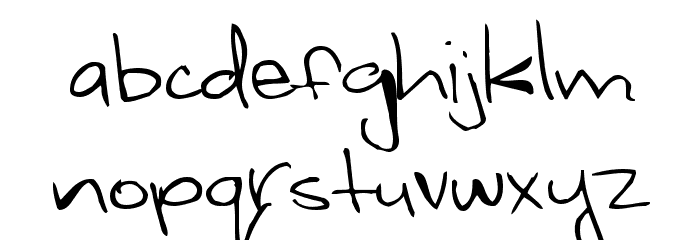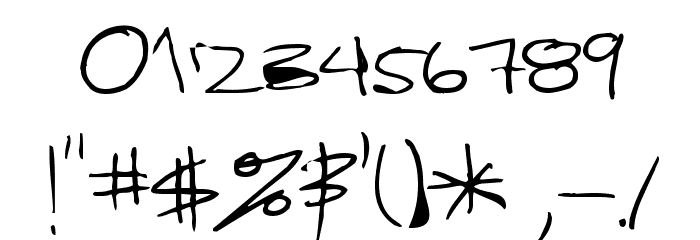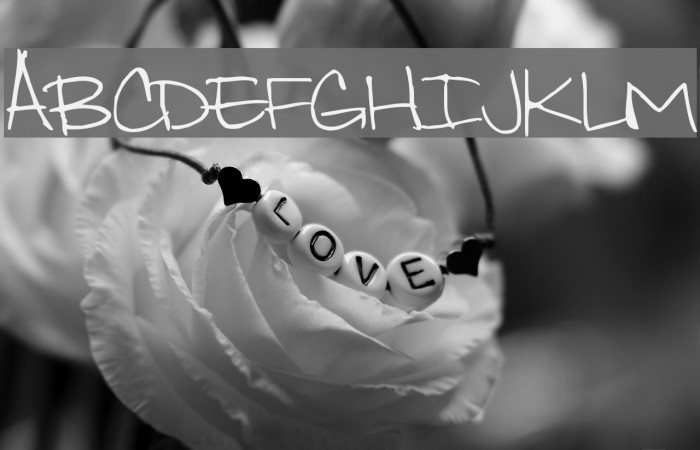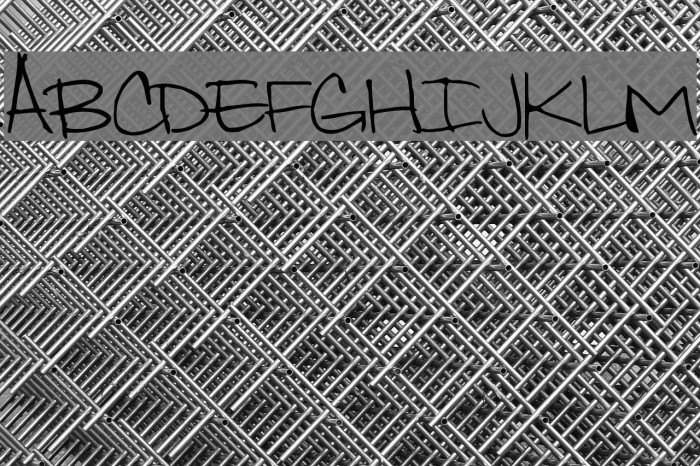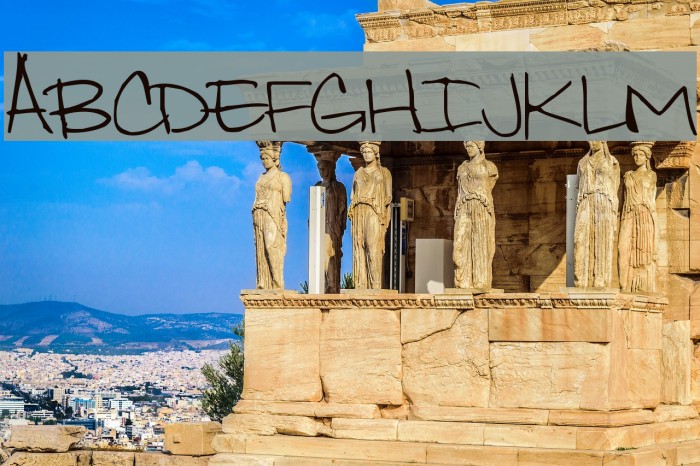
WhiteyFord Font
This font exudes a playful and spontaneous vibe, characterized by its handwritten style that mimics the look of casual, freeform penmanship. The letters are uneven and slightly tilted, giving an impression of movement and energy. The strokes vary in thickness, adding a dynamic quality to the text. The uppercase letters are bold and assertive, while the lowercase letters maintain a more relaxed and approachable feel. Numbers and special characters follow the same lively aesthetic, making this font ideal for projects that require a personal touch or an informal tone.
A playful, handwritten font with dynamic strokes and a casual feel.
- Proposed Projects: Great for greeting cards, personal blogs, creative branding, or any project needing a personal, informal touch.
- Overall Style: Casual, Playful
- Use Case: Headlines, Personal projects, Informal communication